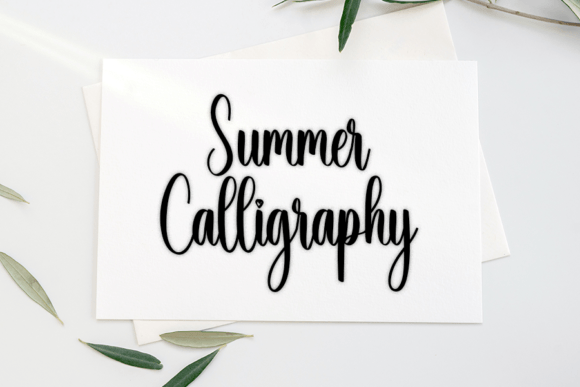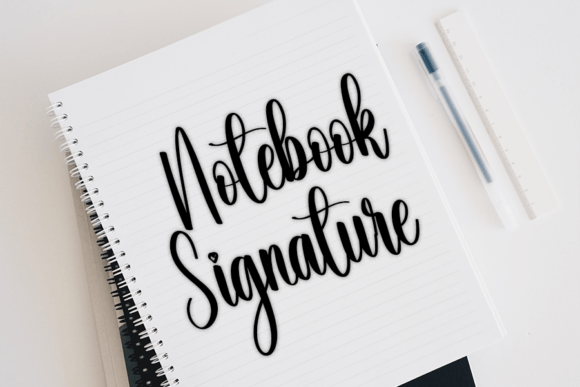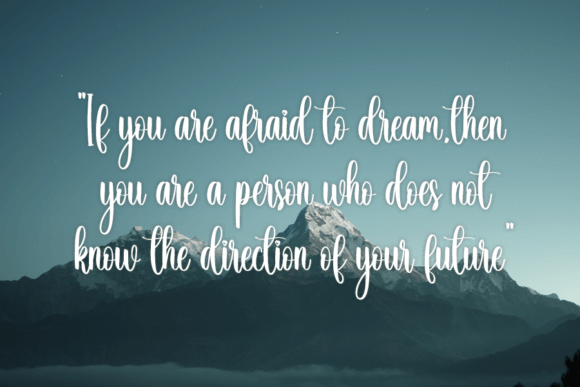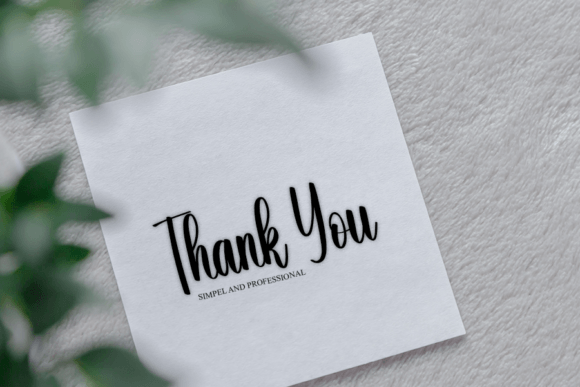
Introducing Christian Font: A Delicate Handwritten Style for Unique Designs
Are you a designer or crafter looking for a font that adds a touch of elegance and personality to your projects? Look no further than Christian Font, a delicate handwritten font carefully crafted for a cool and unique design. In this article, we’ll dive into the features and benefits of Christian Font, and explore how it can be used to elevate your designs.
What is Christian Font?
Christian Font is a beautiful, hand-written font that is perfect for adding a personal touch to your designs. With its delicate lines and elegant curves, this font is sure to impress. Whether you’re creating invitations, writing letters, or designing food products, Christian Font is the perfect choice for anyone looking for a unique and stylish font.
Key Features of Christian Font
- Delicate Handwritten Style: Christian Font features a delicate handwritten style that is perfect for creating elegant and sophisticated designs.
- Unique Design: This font is carefully crafted to provide a cool and unique design that will set your projects apart from the rest.
- Versatile: Christian Font can be used for a variety of projects, including letters, invitations, food products, titles, and more.
- Easily Readable: Despite its delicate nature, Christian Font is easily readable, making it perfect for body text and headings.
Uses for Christian Font
Christian Font is a versatile font that can be used for a wide range of projects. Here are some ideas to get you started:
- Invitations: Use Christian Font to create beautiful and elegant invitations for weddings, birthdays, and other special occasions.
- Letter Writing: Add a personal touch to your letters with Christian Font, perfect for writing to friends, family, or loved ones.
- Food Products: Use Christian Font to create labels, packaging, and branding for food products, such as baked goods, specialty foods, and more.
- Titles and Headings: Add a touch of elegance to your titles and headings with Christian Font, perfect for use in magazines, blogs, and websites.
Benefits of Using Christian Font
So why choose Christian Font for your next project? Here are just a few benefits of using this beautiful font:
- Adds a Personal Touch: Christian Font adds a personal touch to your designs, making them feel more unique and special.
- Elevates Your Brand: Use Christian Font to elevate your brand and create a cohesive visual identity that will set you apart from the competition.
- Easy to Read: Christian Font is easily readable, making it perfect for body text and headings.
- Versatile: This font can be used for a wide range of projects, from invitations to food products and more.
Tips for Using Christian Font
Here are a few tips for getting the most out of Christian Font:
- Use it Sparingly: Christian Font is a delicate font, so use it sparingly to avoid overwhelming your design.
- Pair it with Other Fonts: Experiment with pairing Christian Font with other fonts to create a unique and interesting design.
- Adjust the Size: Adjust the size of Christian Font to create visual interest and hierarchy in your design.
Christian Font is a beautiful, delicate handwritten font that is perfect for adding a touch of elegance and personality to your designs. With its unique design, versatility, and ease of use, this font is sure to become a favorite among designers and crafters. Whether you’re creating invitations, writing letters, or designing food products, Christian Font is the perfect choice for anyone looking for a cool and unique font.